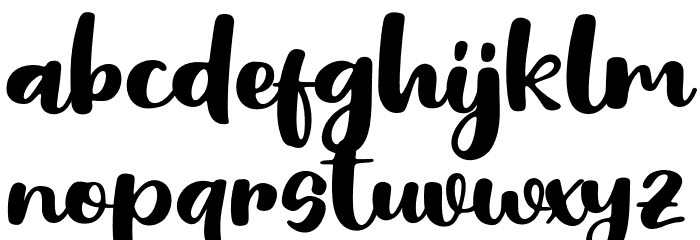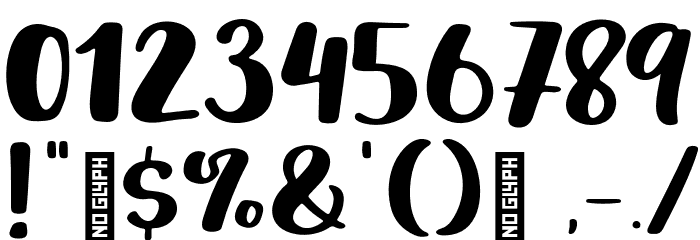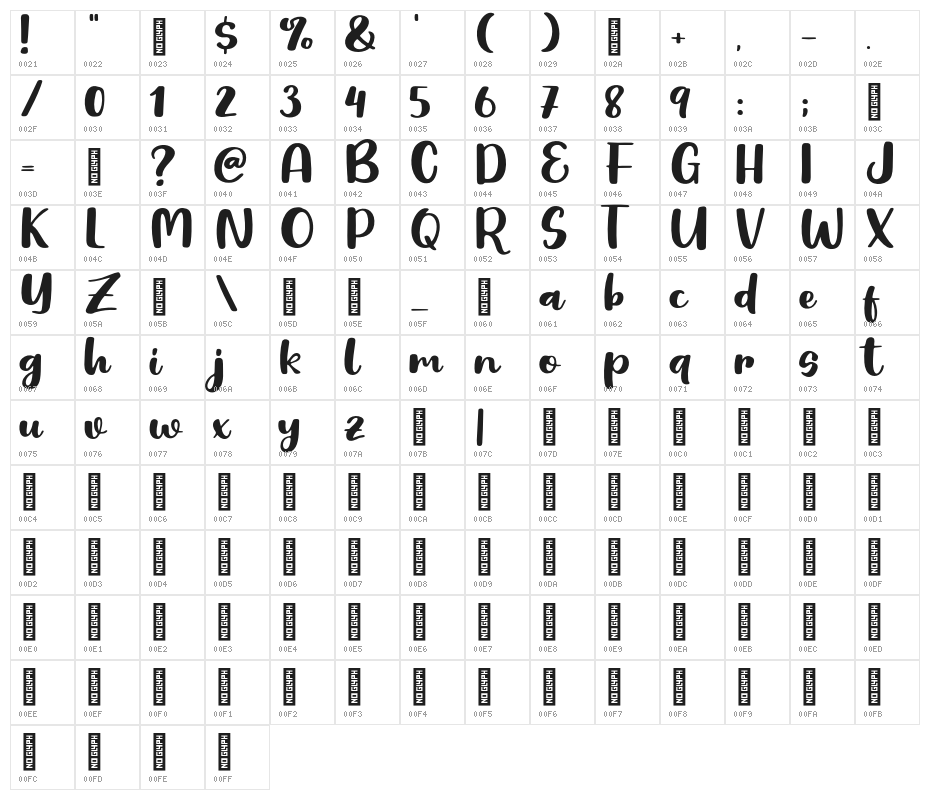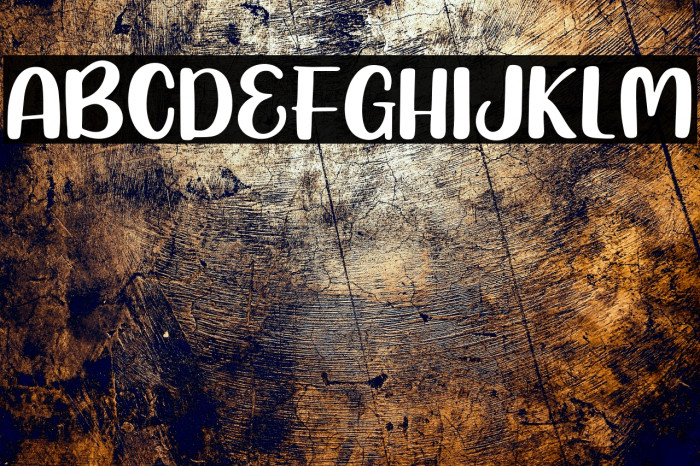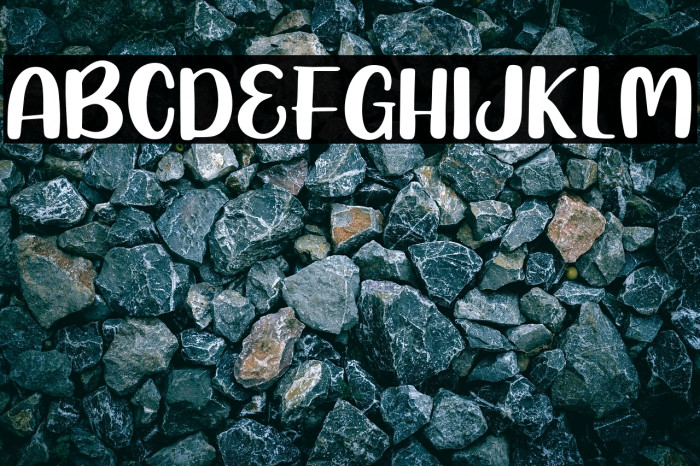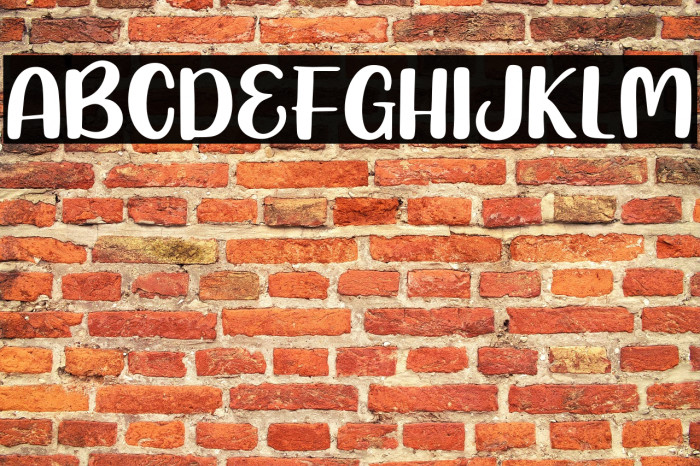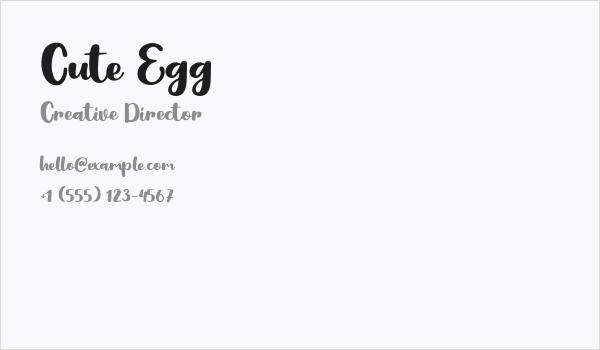
Cute Egg Font
This playful and whimsical font features bold, rounded characters with a hand-drawn aesthetic. The uppercase letters are slightly taller and more uniform, while the lowercase letters exhibit a charming, flowing style with some characters extending below the baseline. The numbers are bold and consistent with the overall playful theme. Special characters are creatively designed, maintaining the font's lively and friendly appearance. This font exudes a sense of fun and creativity, making it ideal for projects that require a personal touch.
A playful, hand-drawn font with bold, rounded characters and a whimsical style.
- Font: Cute Egg
- Proposed Projects: Ideal for children's books, playful branding, greeting cards, and creative posters.
- Category: Handwritten
- Overall Style: Playful